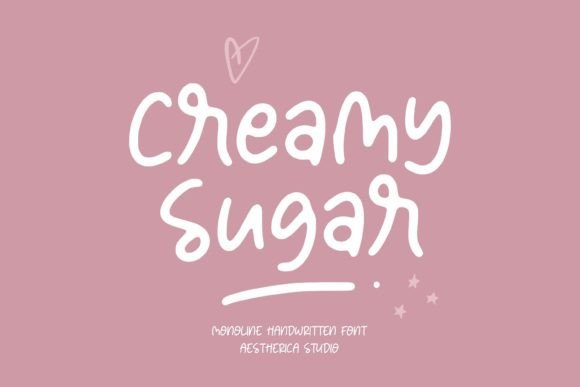
Introducing Creamy Sugar Font, a breathtaking handwritten monoline script that will ignite your creative spirit. Designed by the masterful Aestherica Studio, this font exudes elegance, charm, and a touch of whimsy.
Creamy Sugar's versatile nature makes it an indispensable companion for a multitude of projects. From heartfelt wedding invitations to chic business cards, it effortlessly transforms your designs into works of art. Its graceful curves and flowing lines evoke a sense of authenticity and warmth, leaving an unforgettable impression on your audience.
Whether you're crafting a special announcement, designing a heartfelt letter, or simply adding a touch of personal flair to your social media presence, Creamy Sugar Font is the perfect choice. It's a font that whispers style, inspires creativity, and leaves a lasting impact.
So, let your imagination soar with Creamy Sugar Font. Let its enchanting script add a captivating touch to every word, alluring your readers and leaving them spellbound by your creative brilliance. Download now and unleash the boundless possibilities.